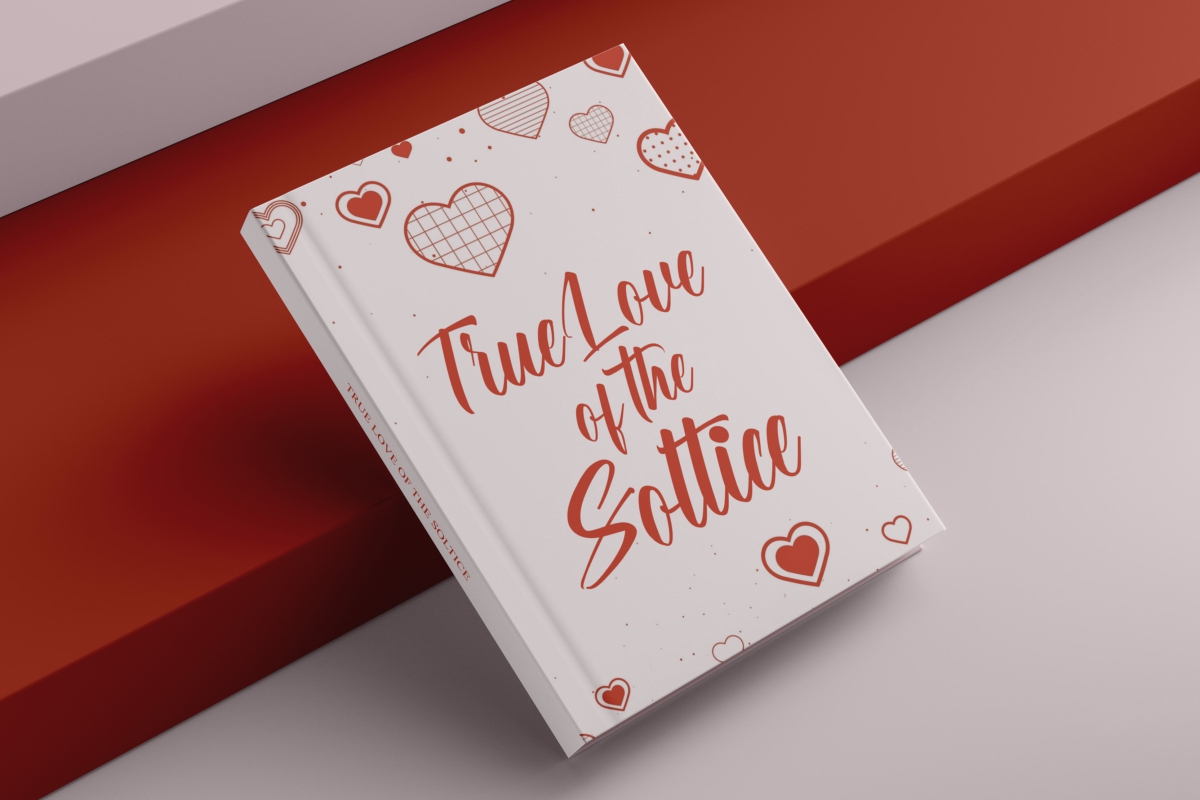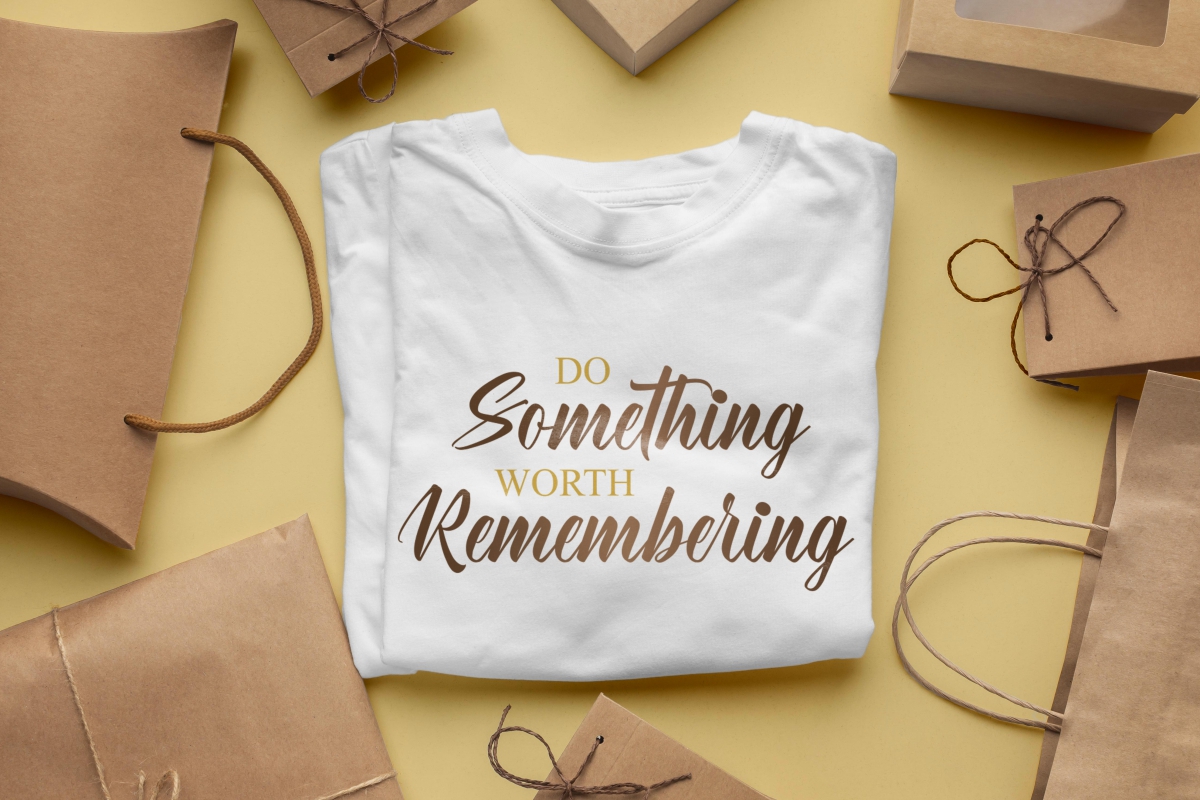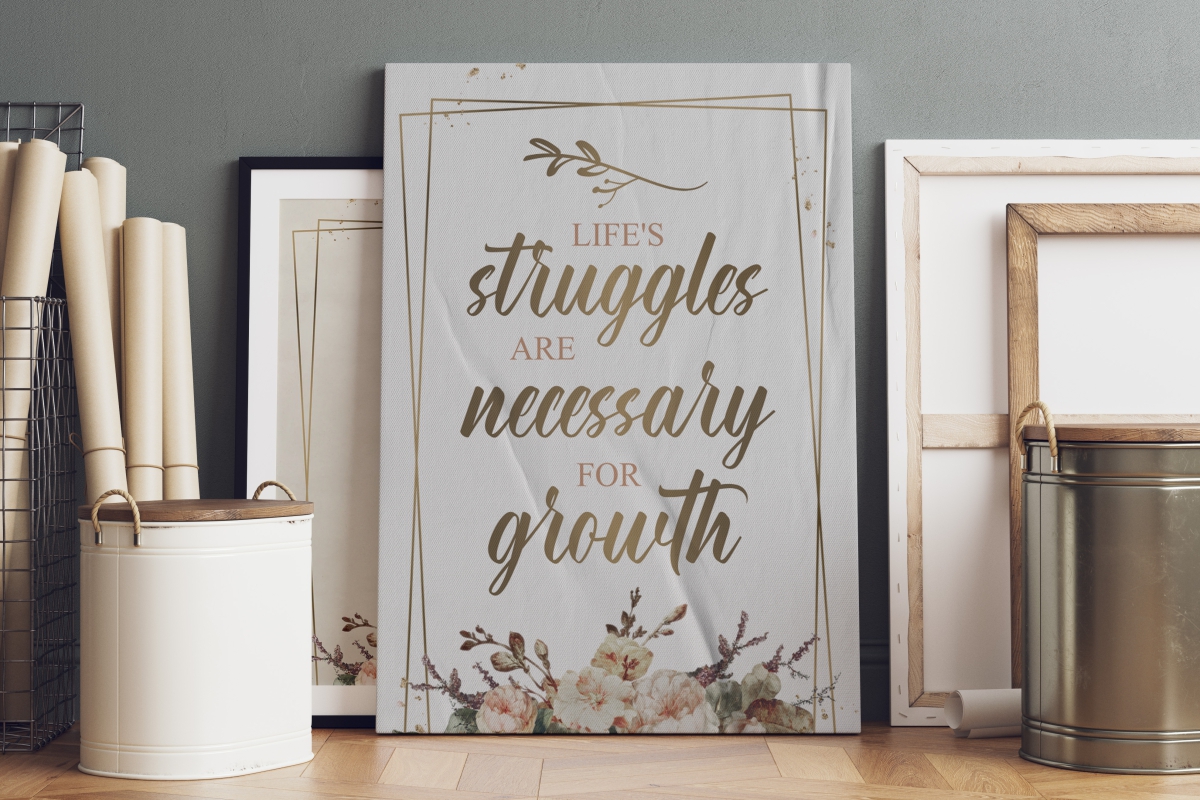
Torrential Rain Font
Torrential Rain Script Font
This is a beautiful script font with calligraphic style. This font has soft strokes that make it look classy, elegant, and modern. It would be perfect for business cards, brand identity, clothing, invitation, signage, quote, and many more!